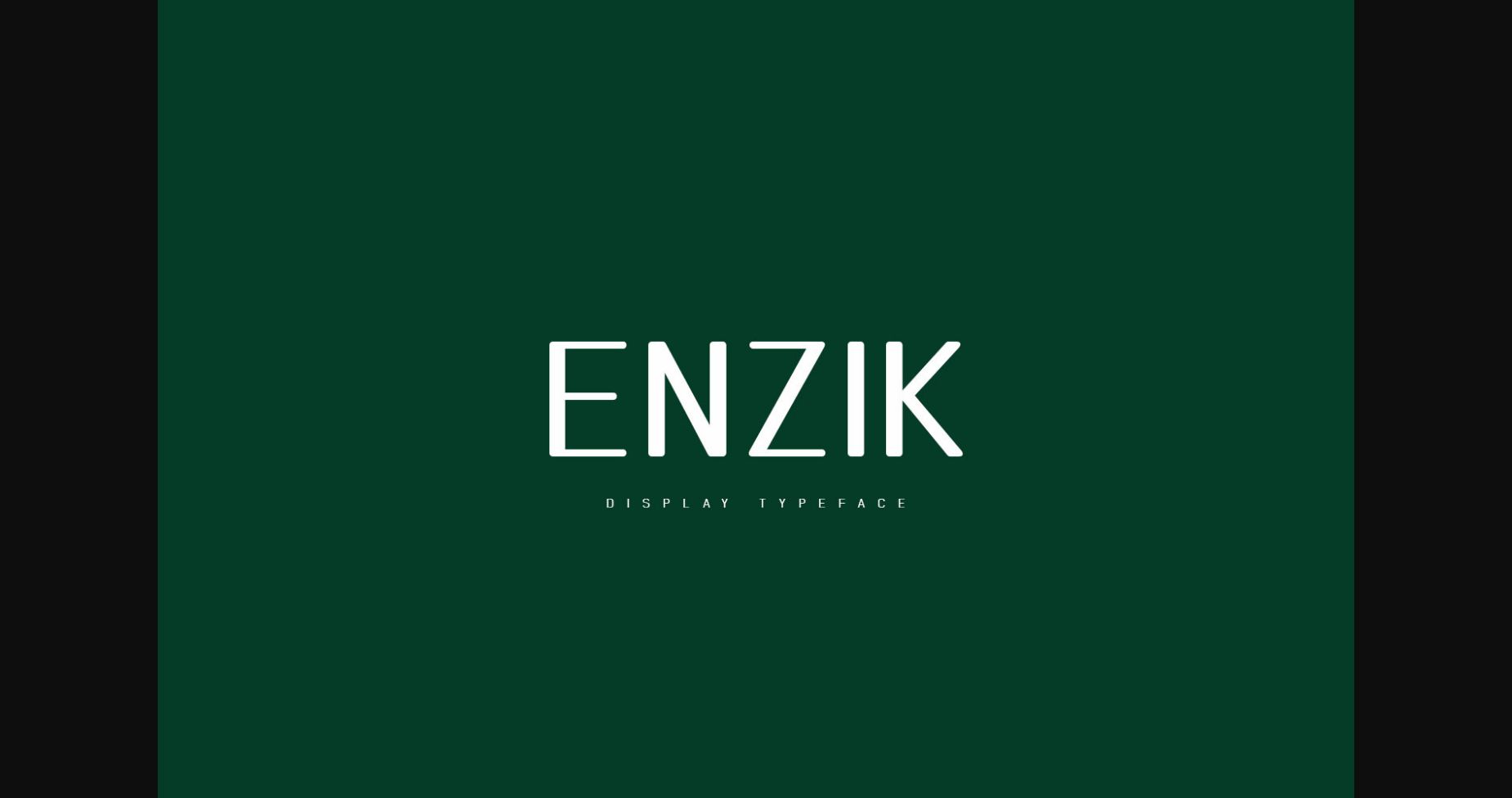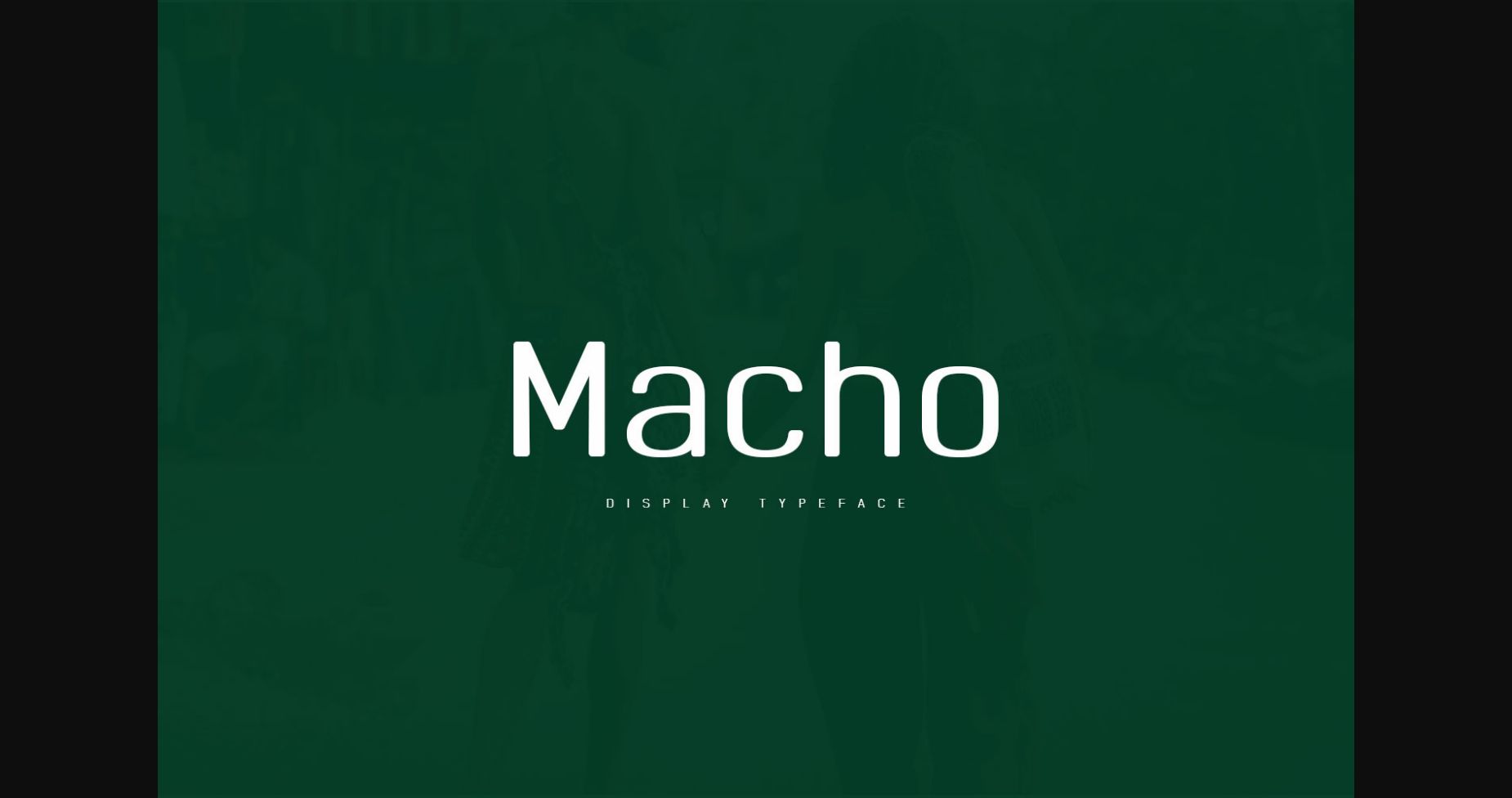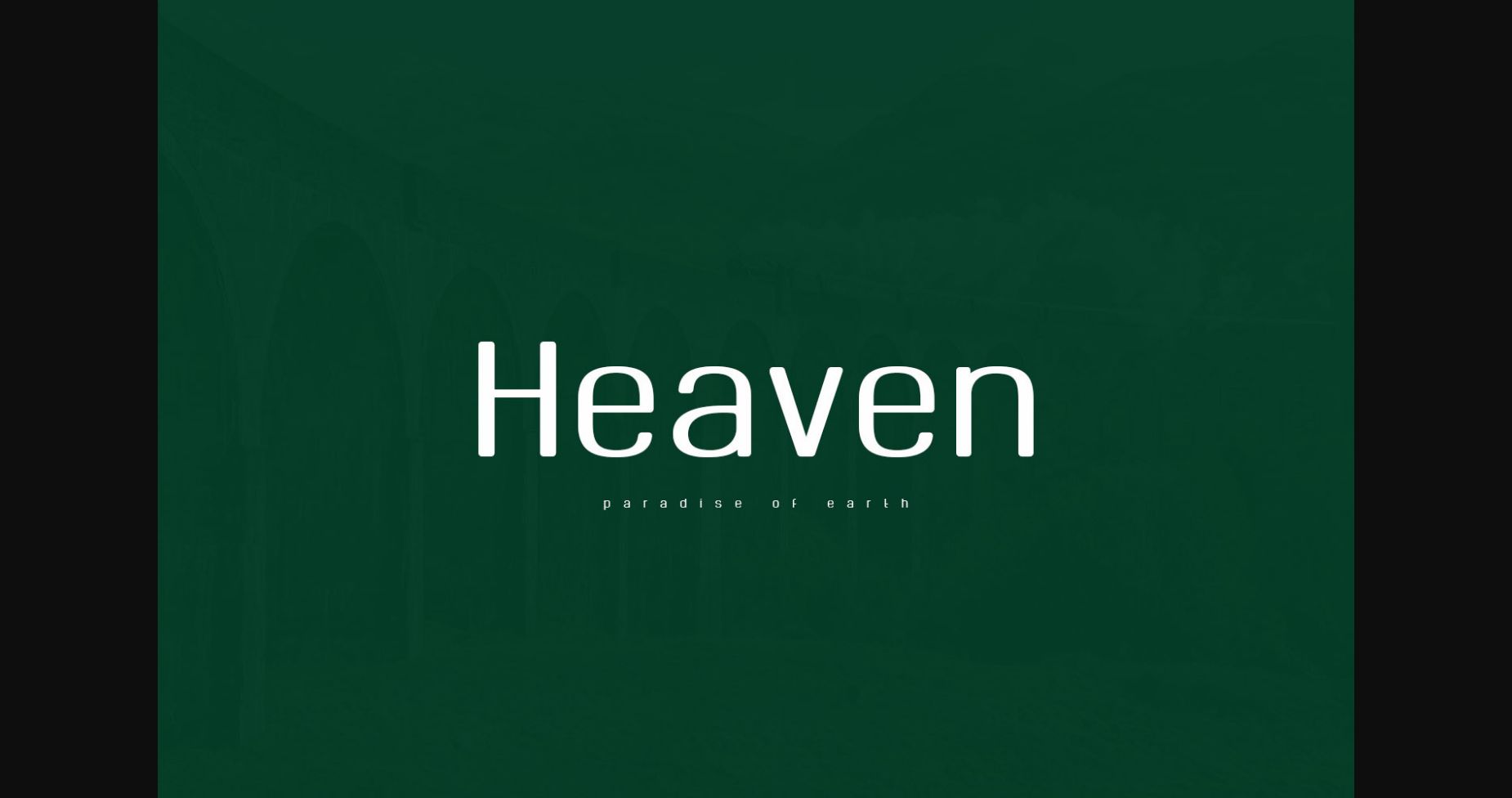
About Enzik Font
Enzik is a cool, simple and bold sans serif font. This font is ideal for writing web designs, business cards, or pretty much anything else that requires a unique touch.